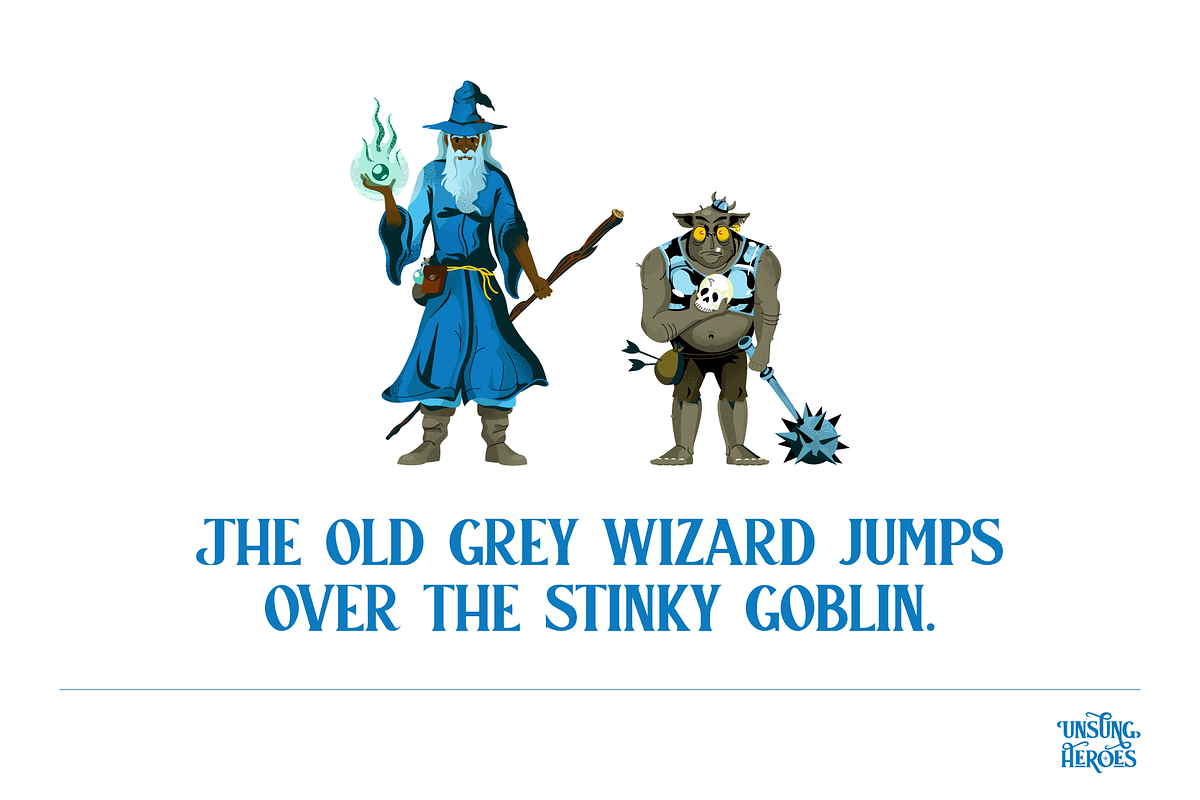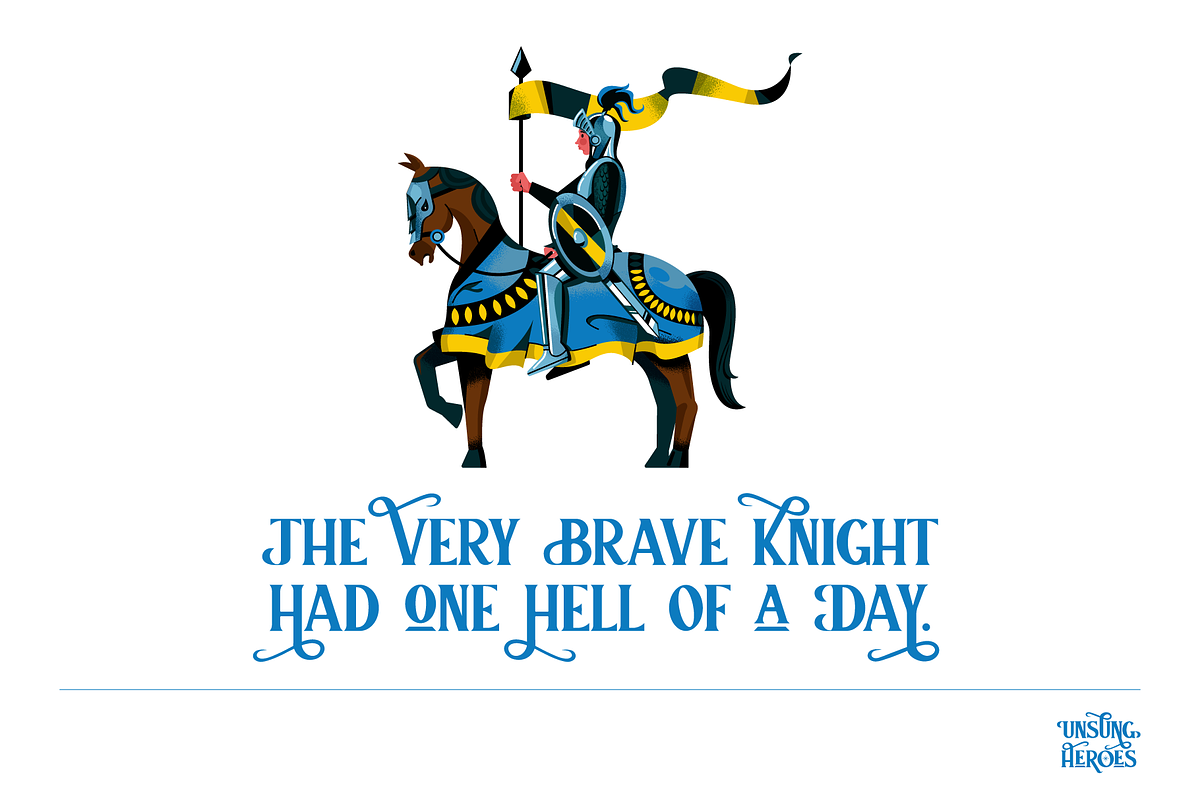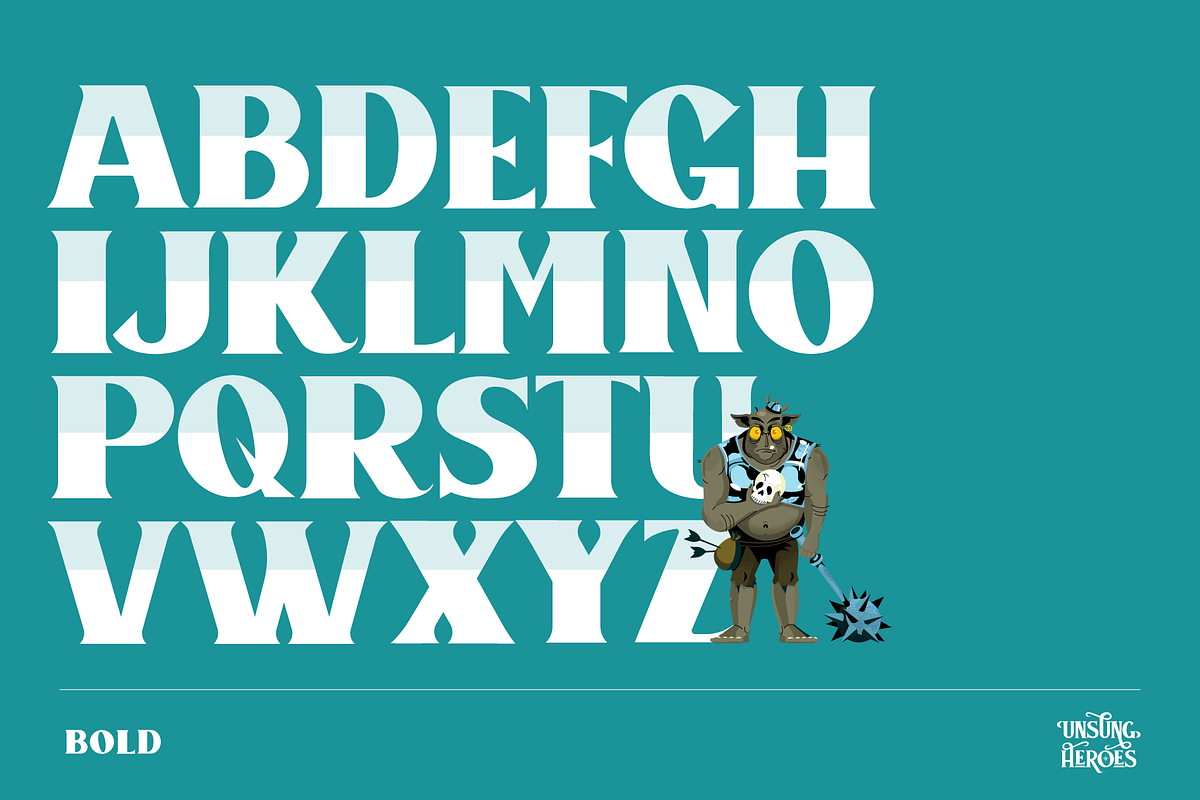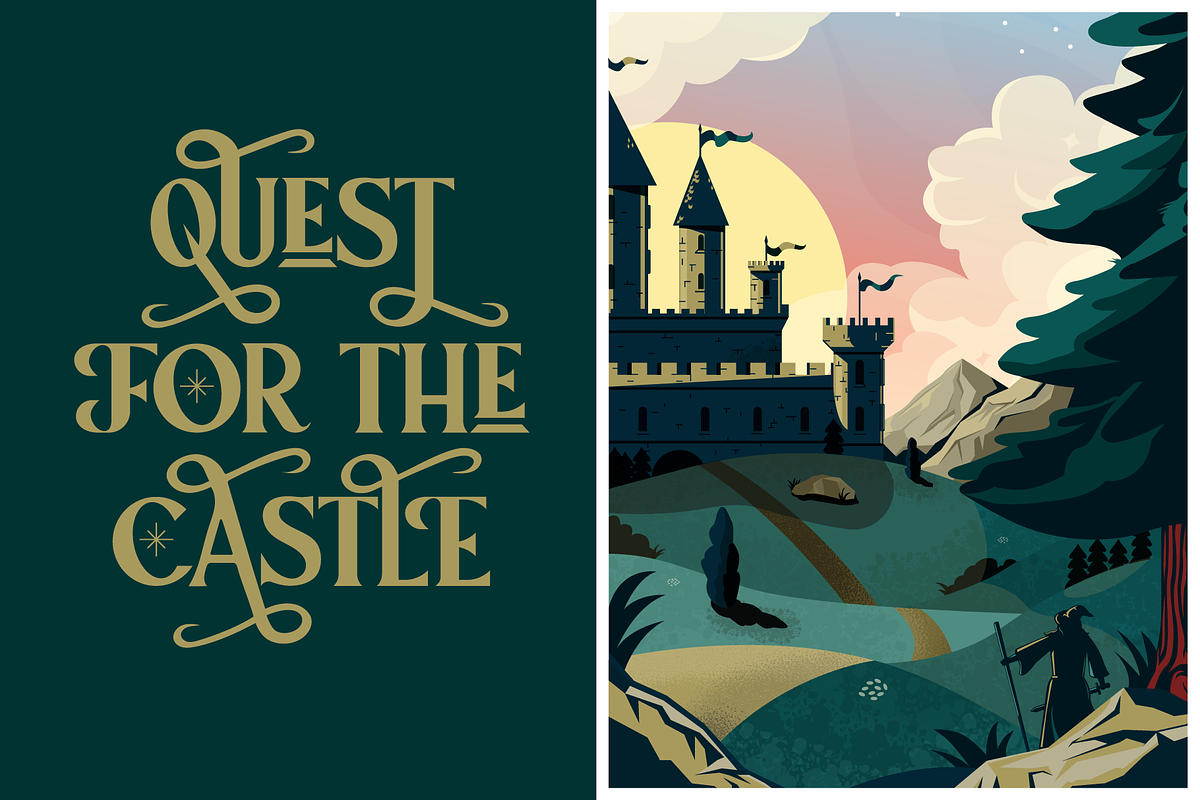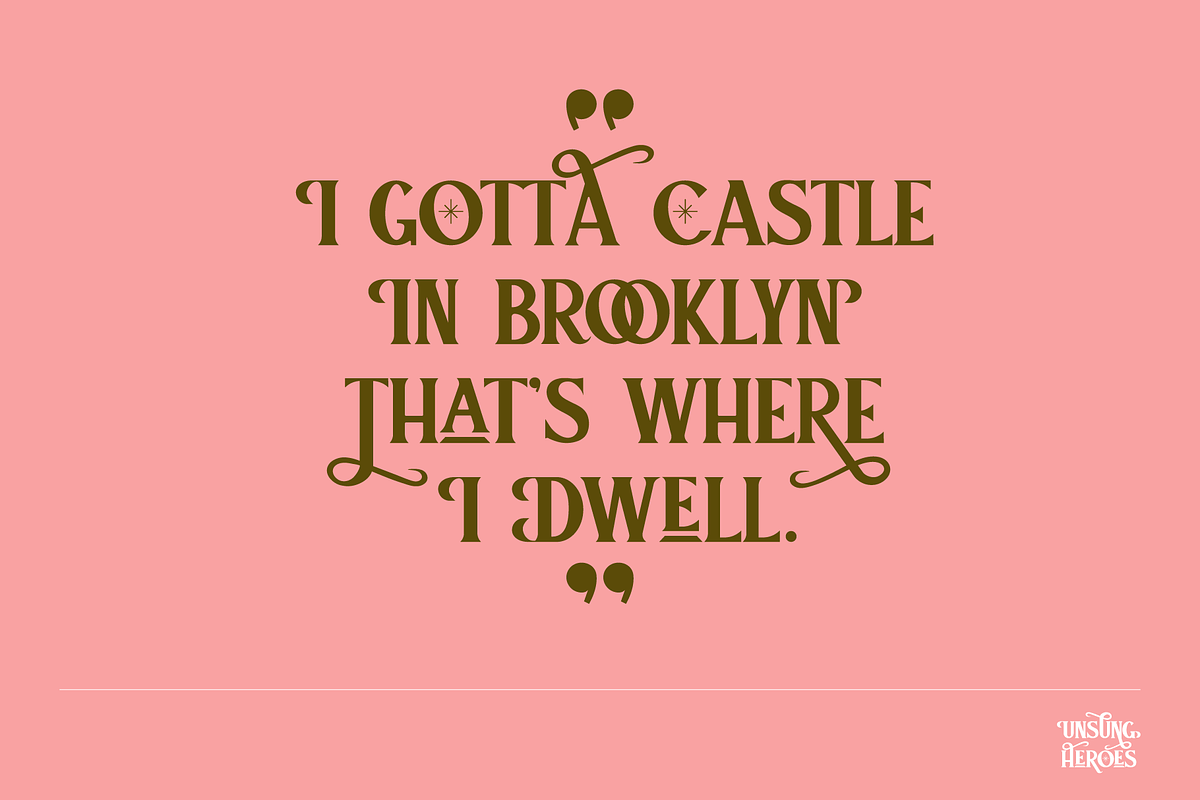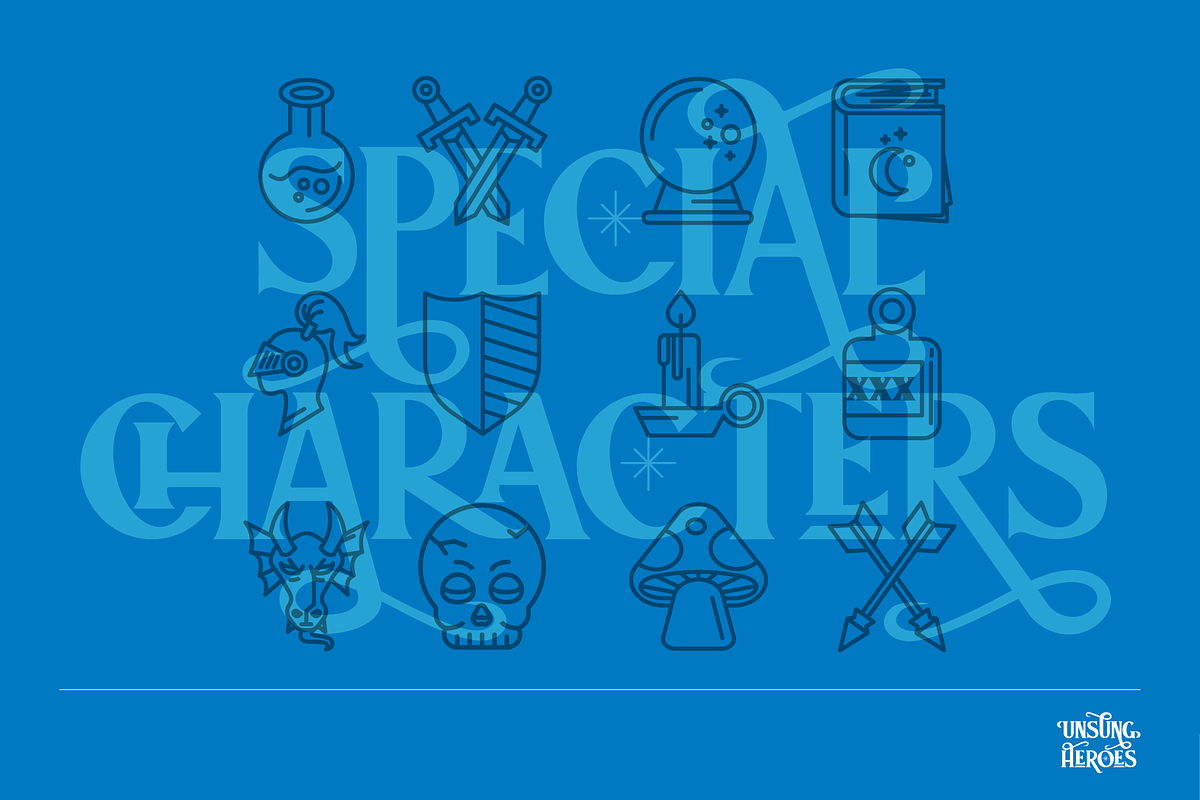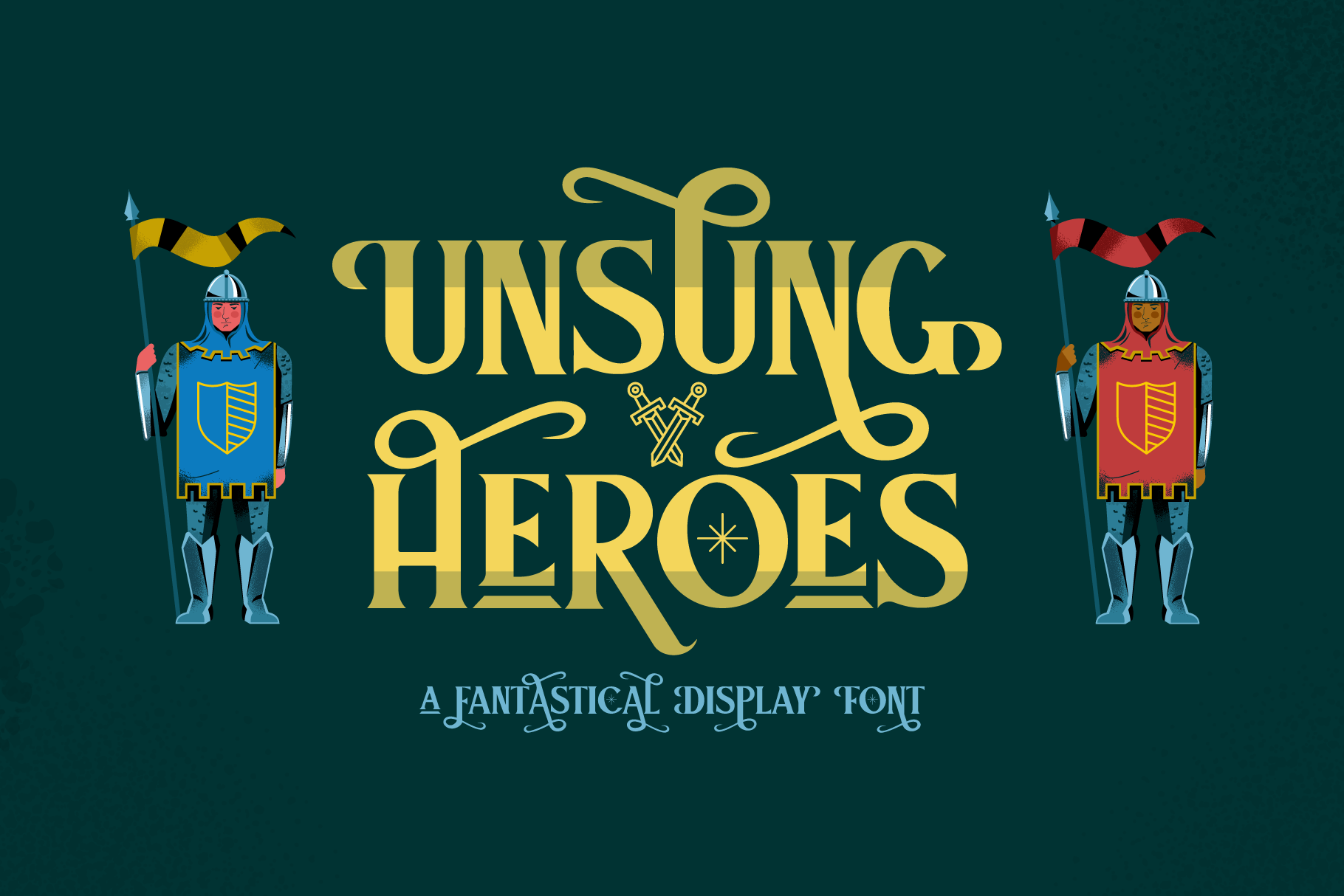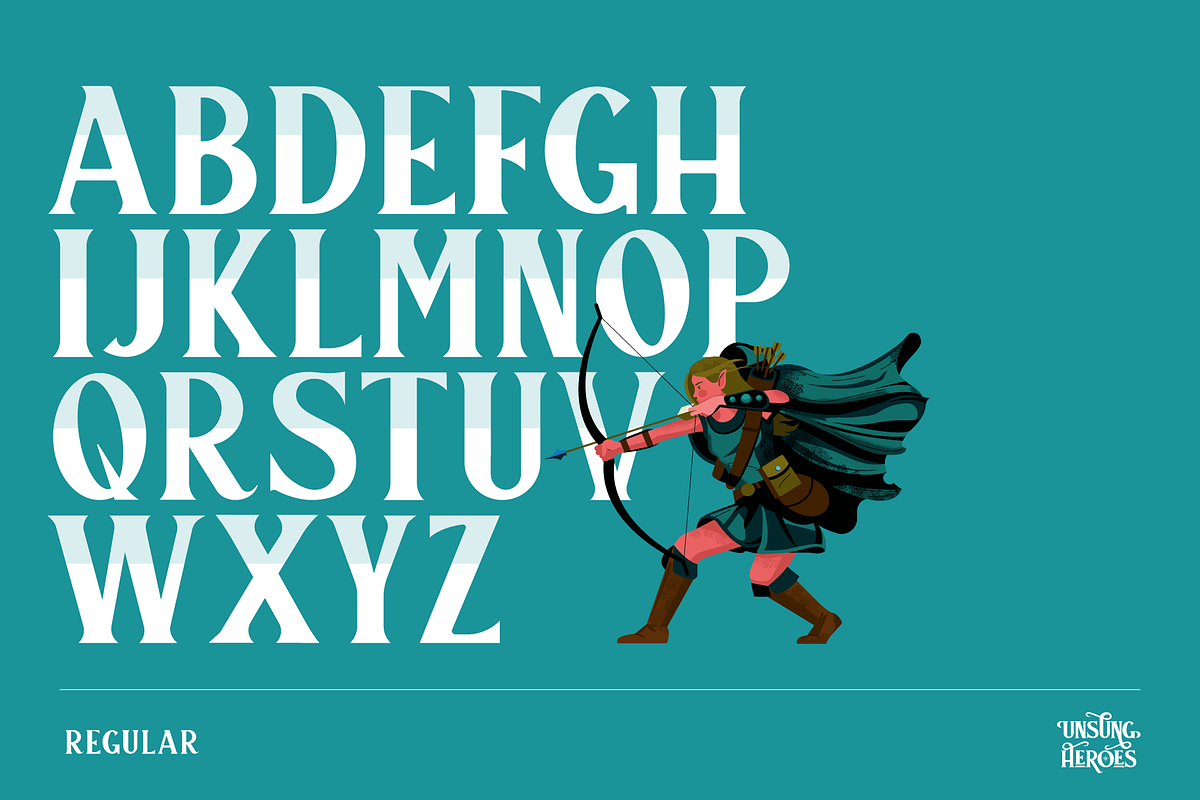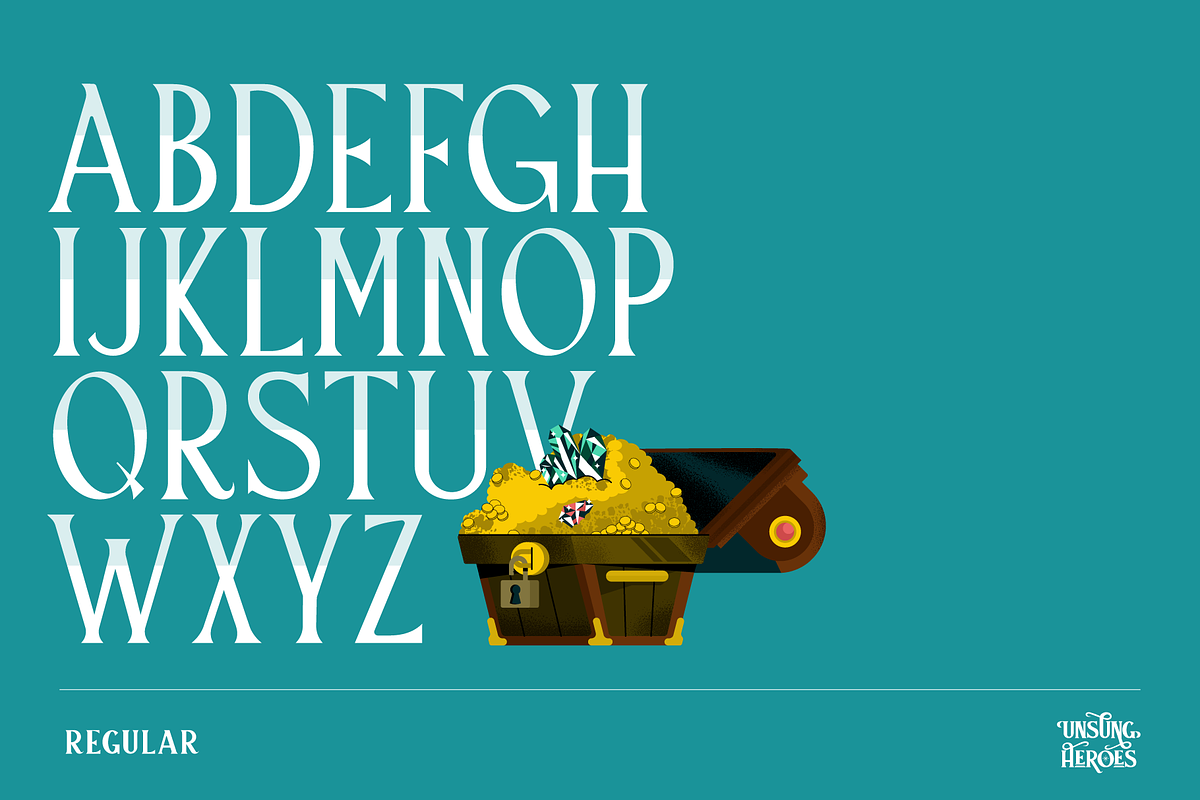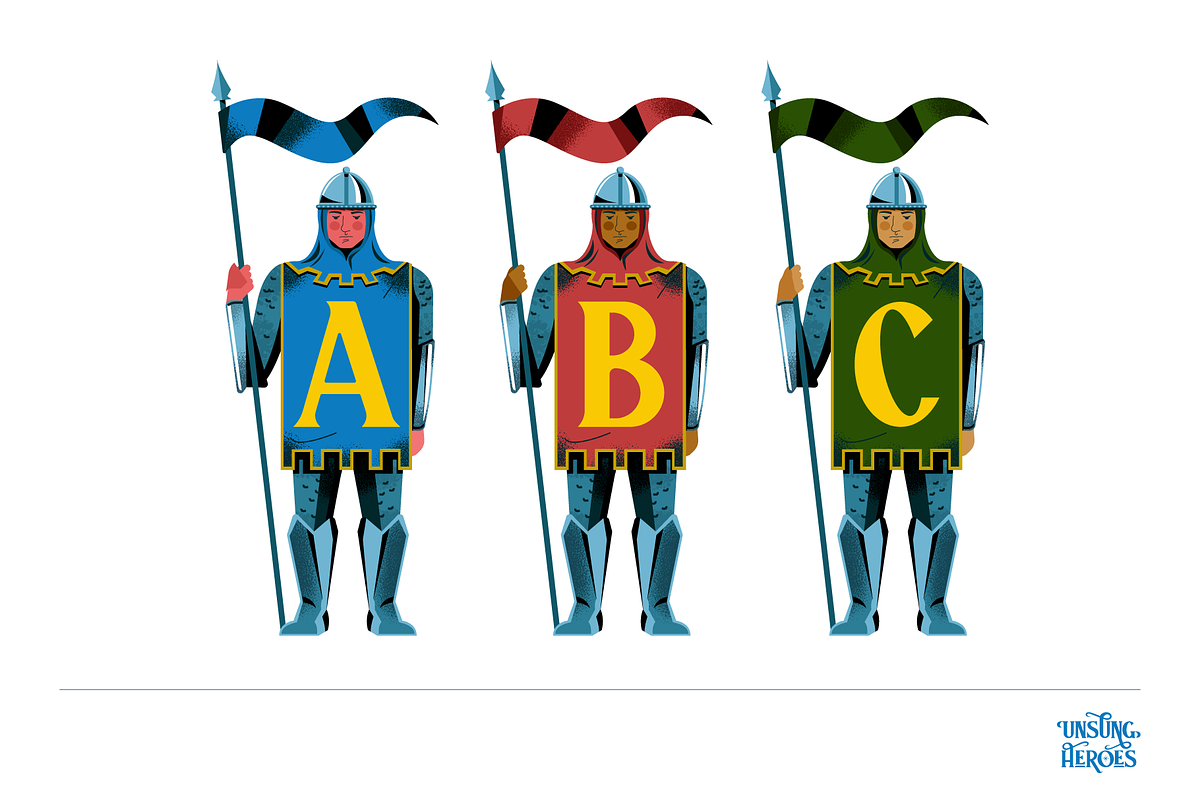
Unsung Heroes Display Font
Unsung Heroes is a display font by Holt510. It's inspiration is from fantasy novels and role playing games of the 70s and 80s. The type characters look hand illustrated, with creative swashes. The font includes 3 weights, multiple ligatures, special characters, alternative characters, upper and lower case letters, and numerals. Unsung Heroes, is perfect for branding and titling. Thanks for looking!